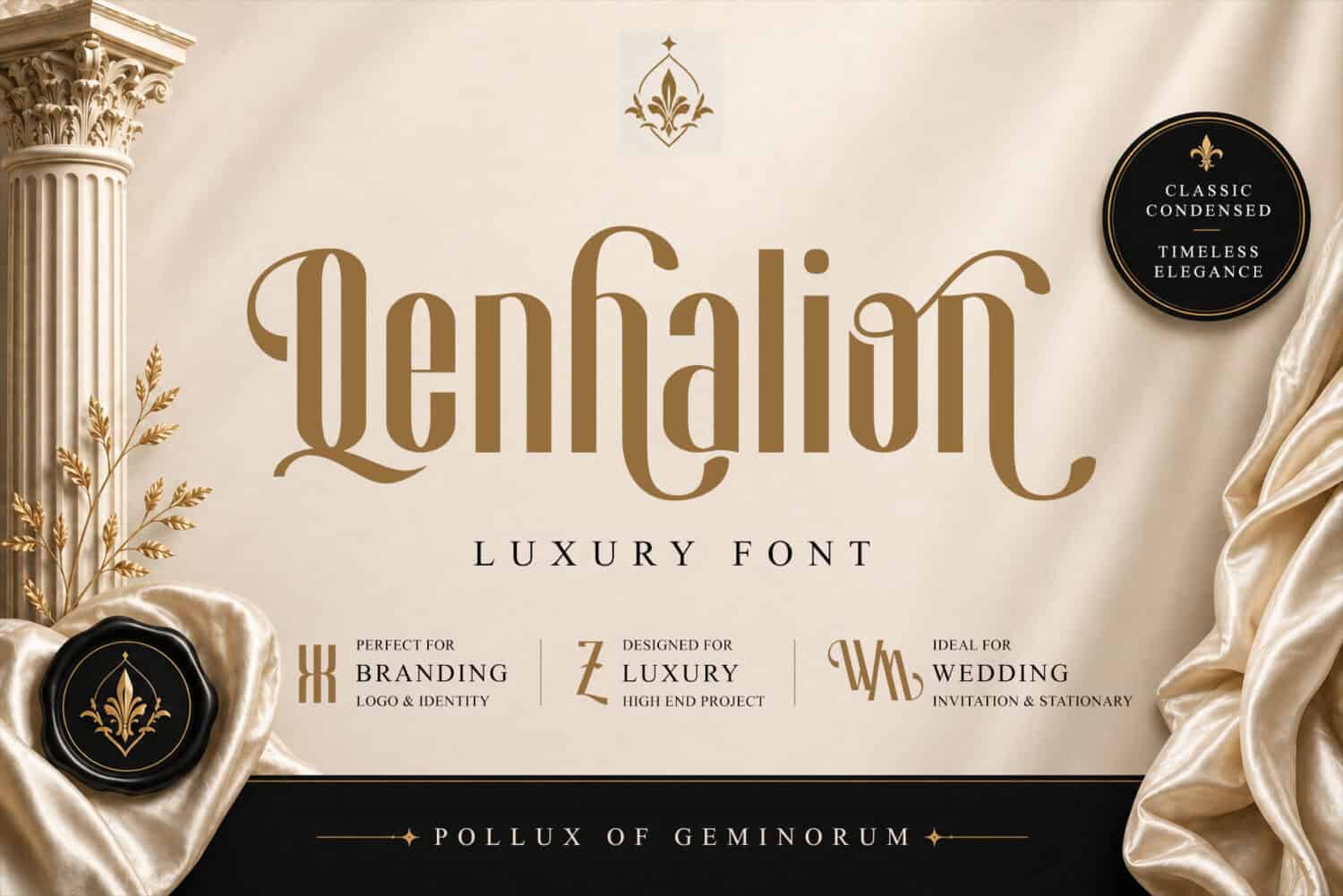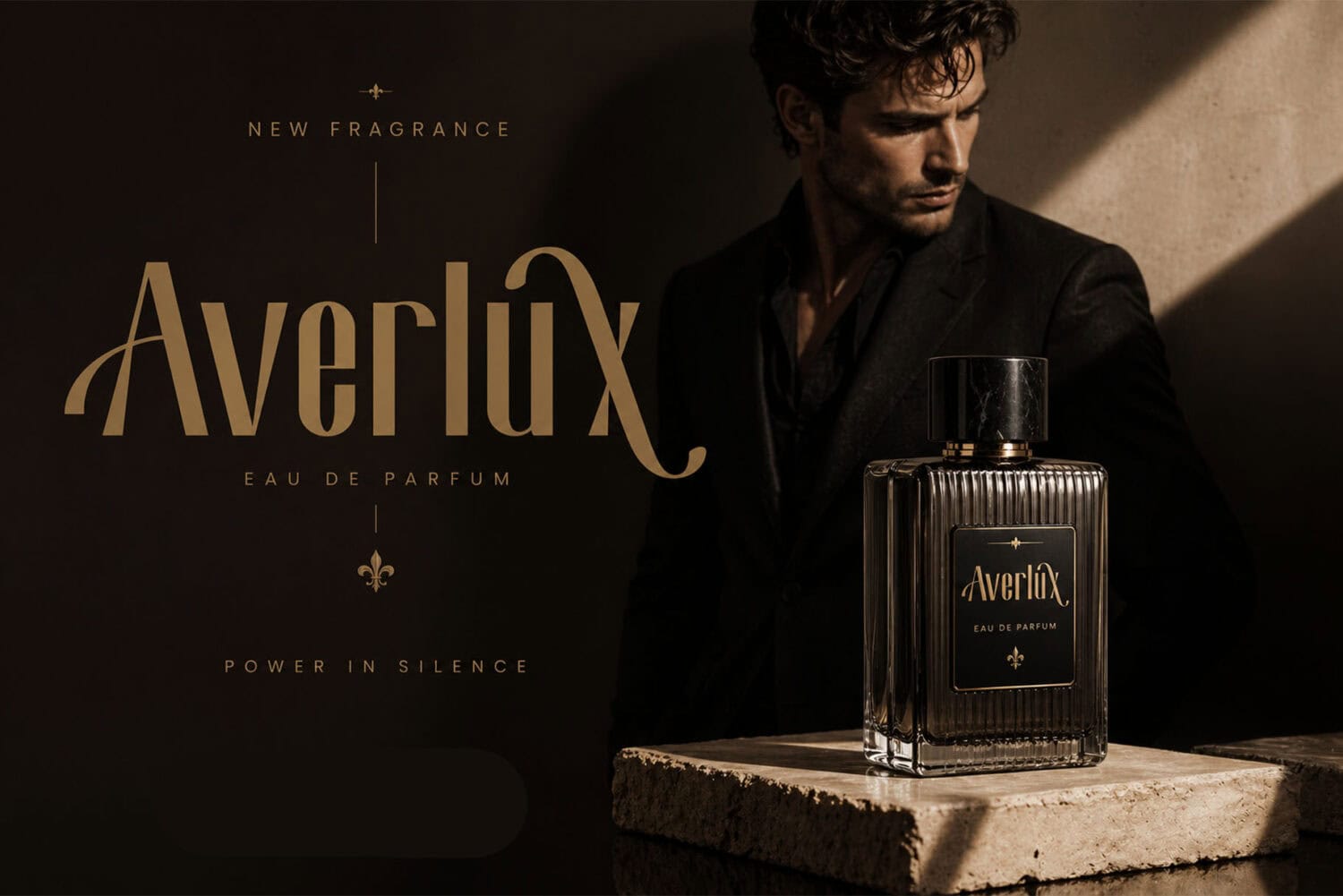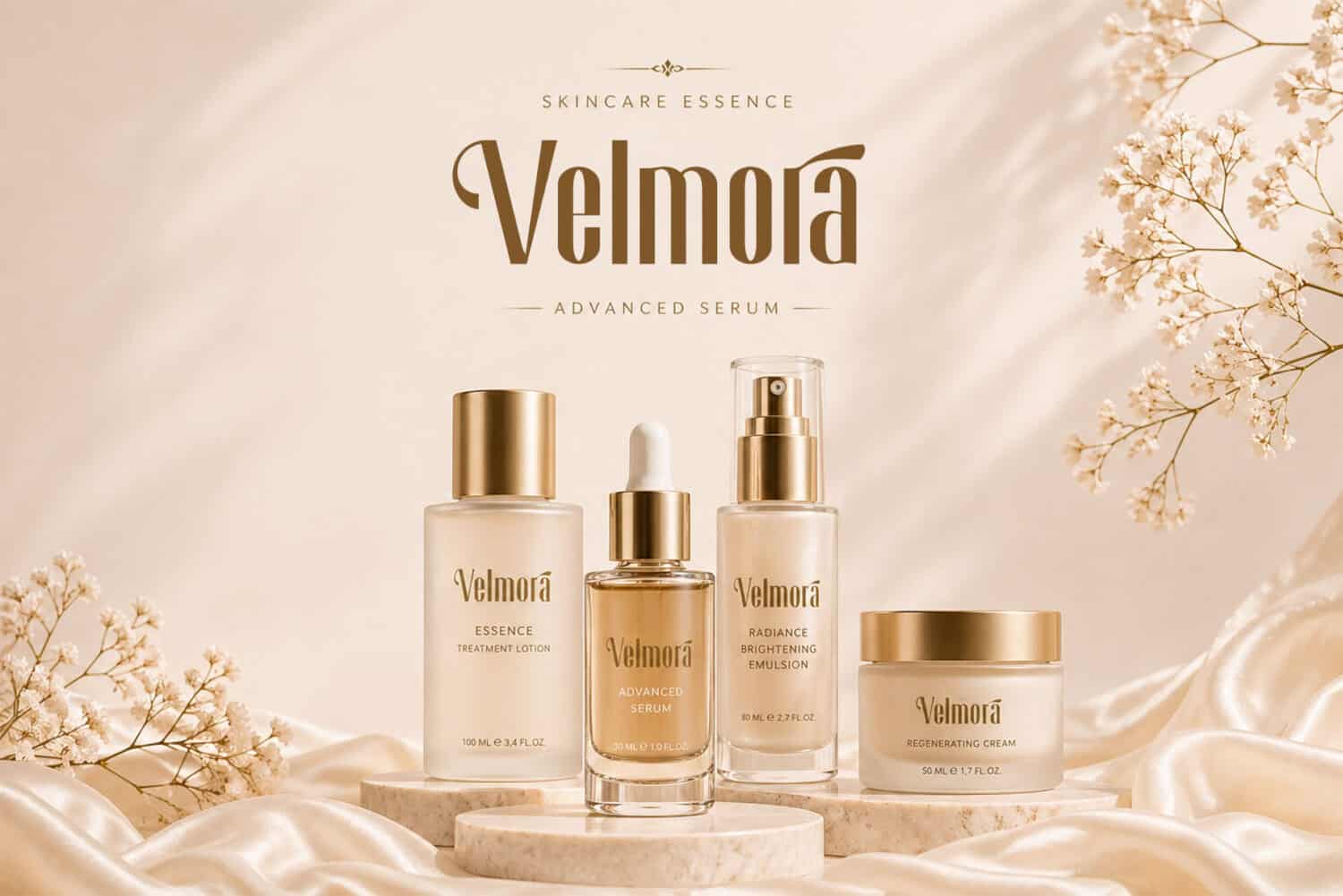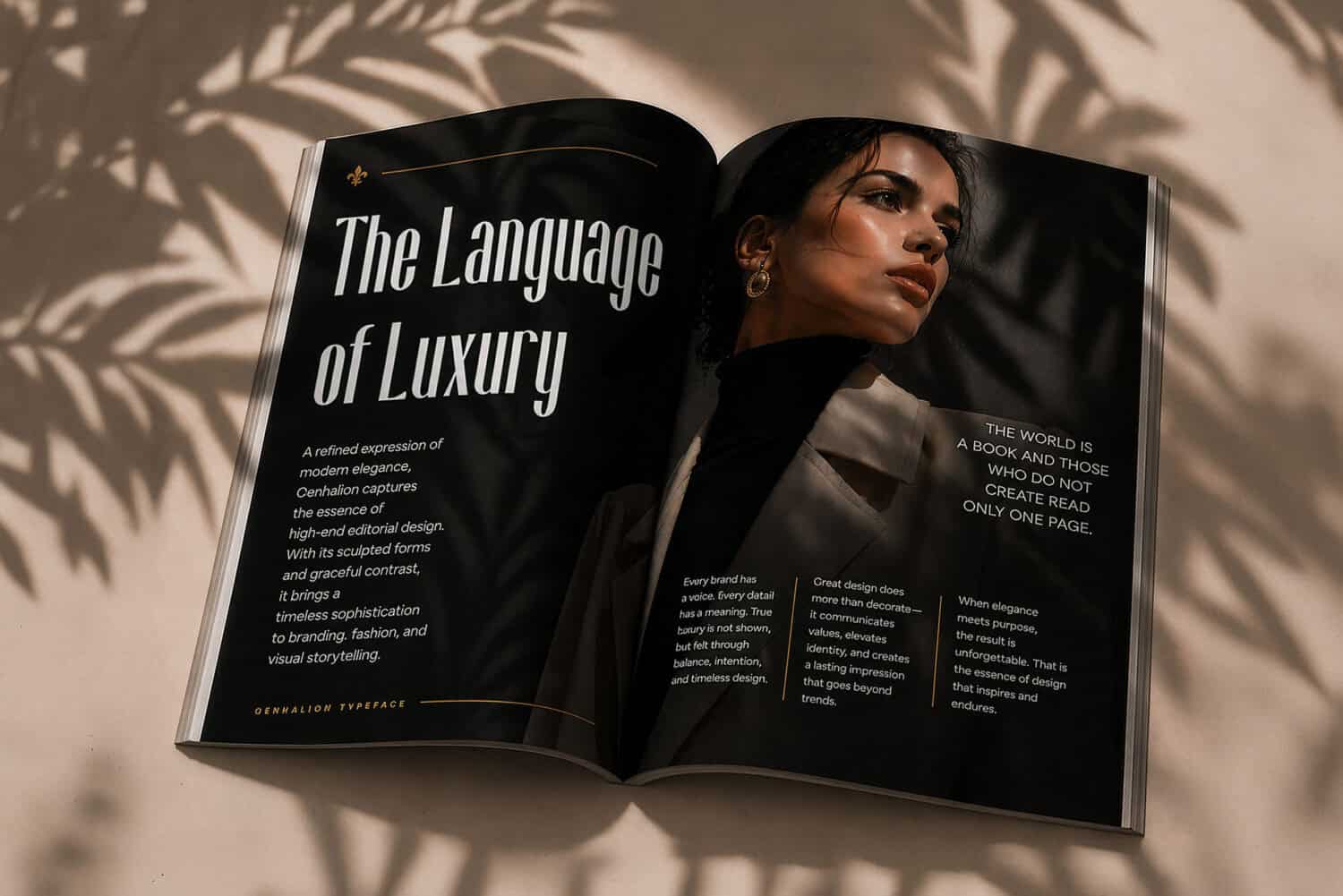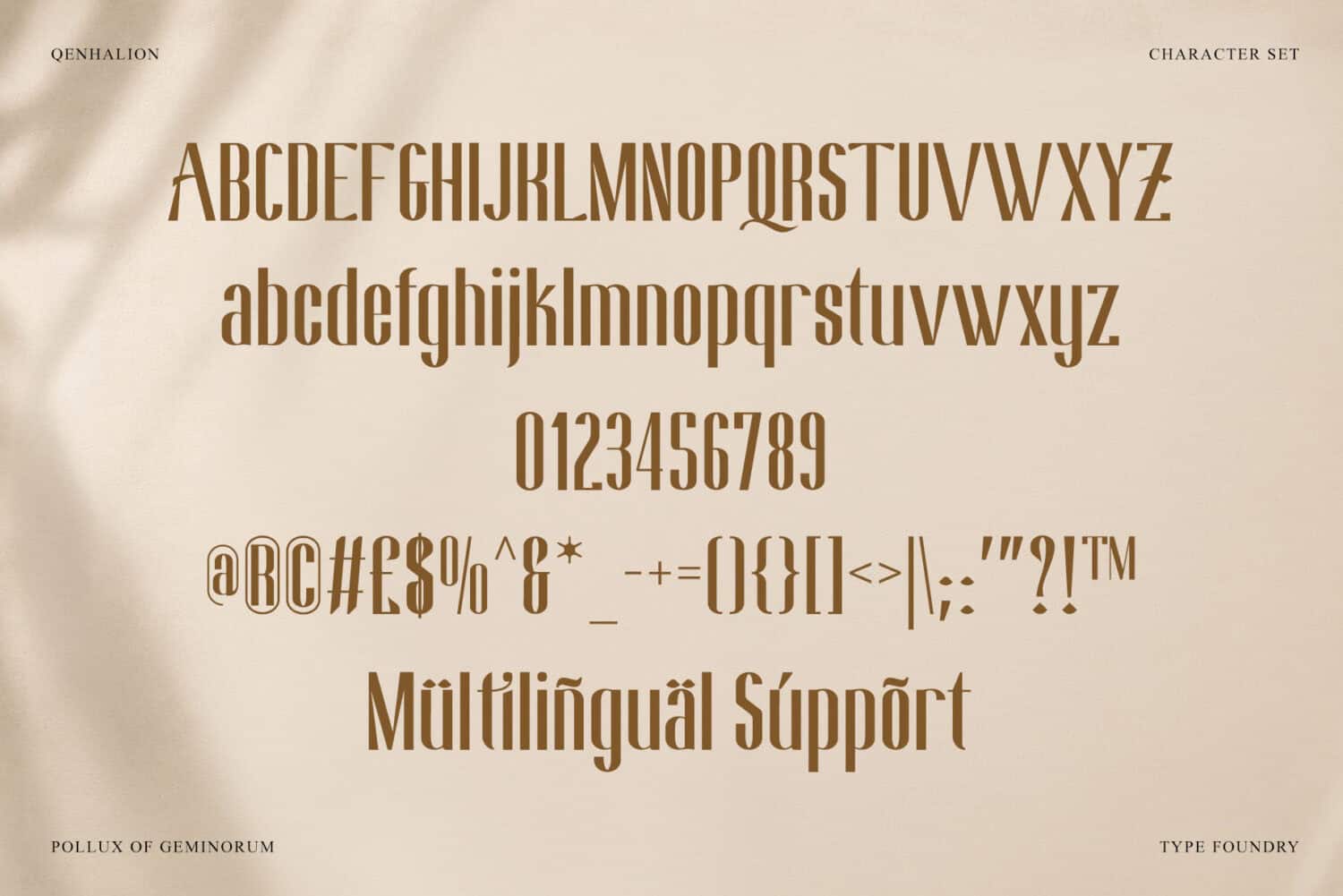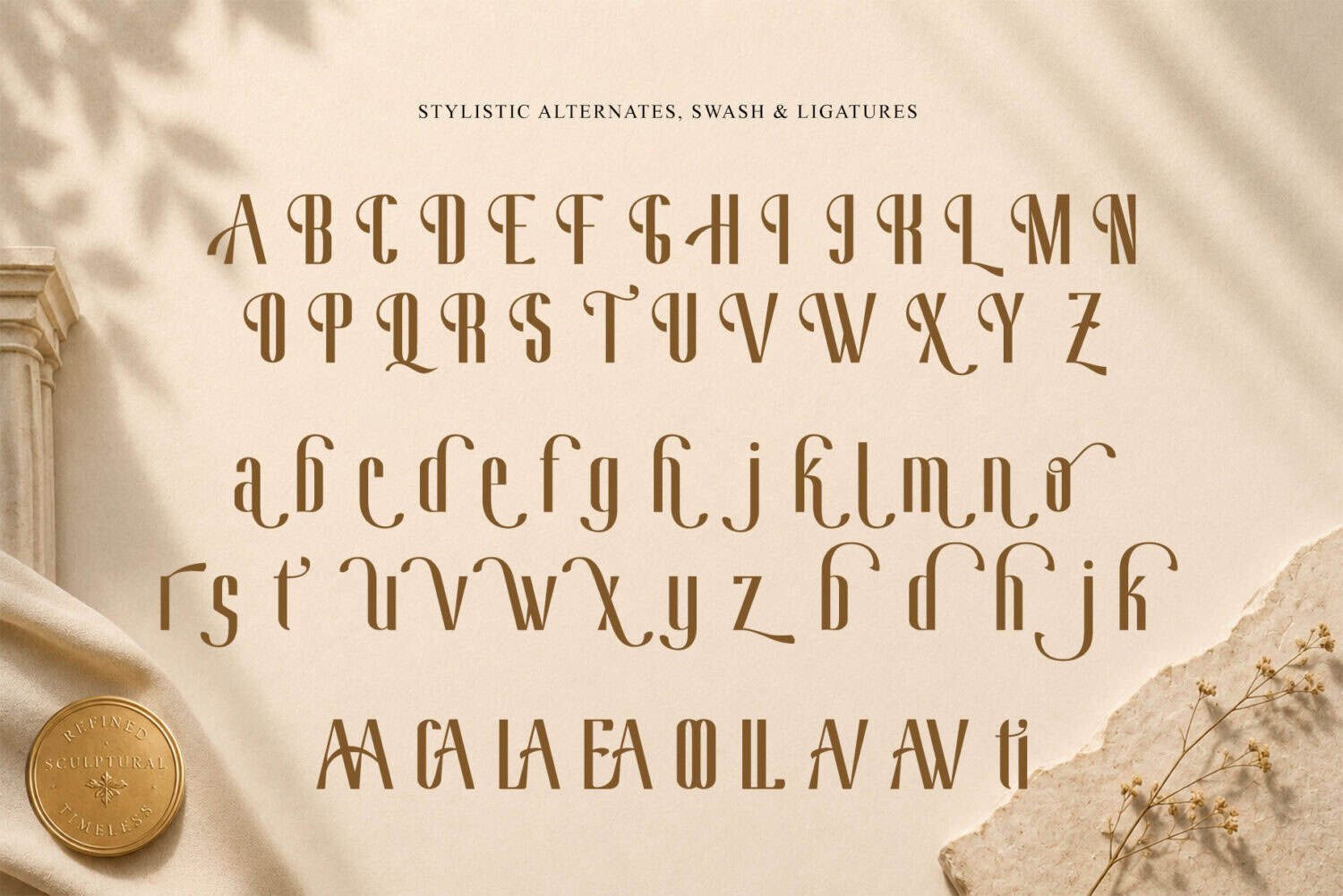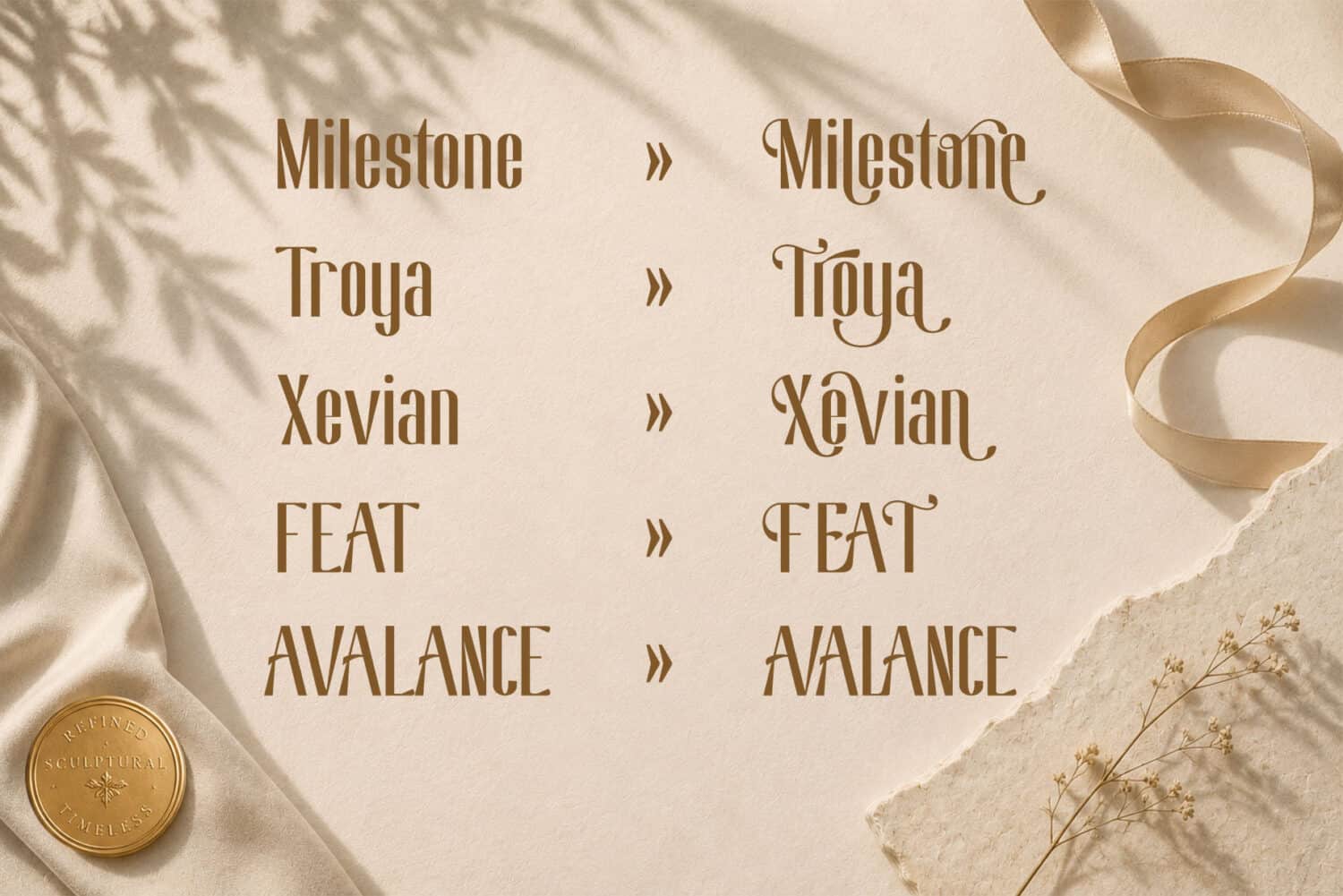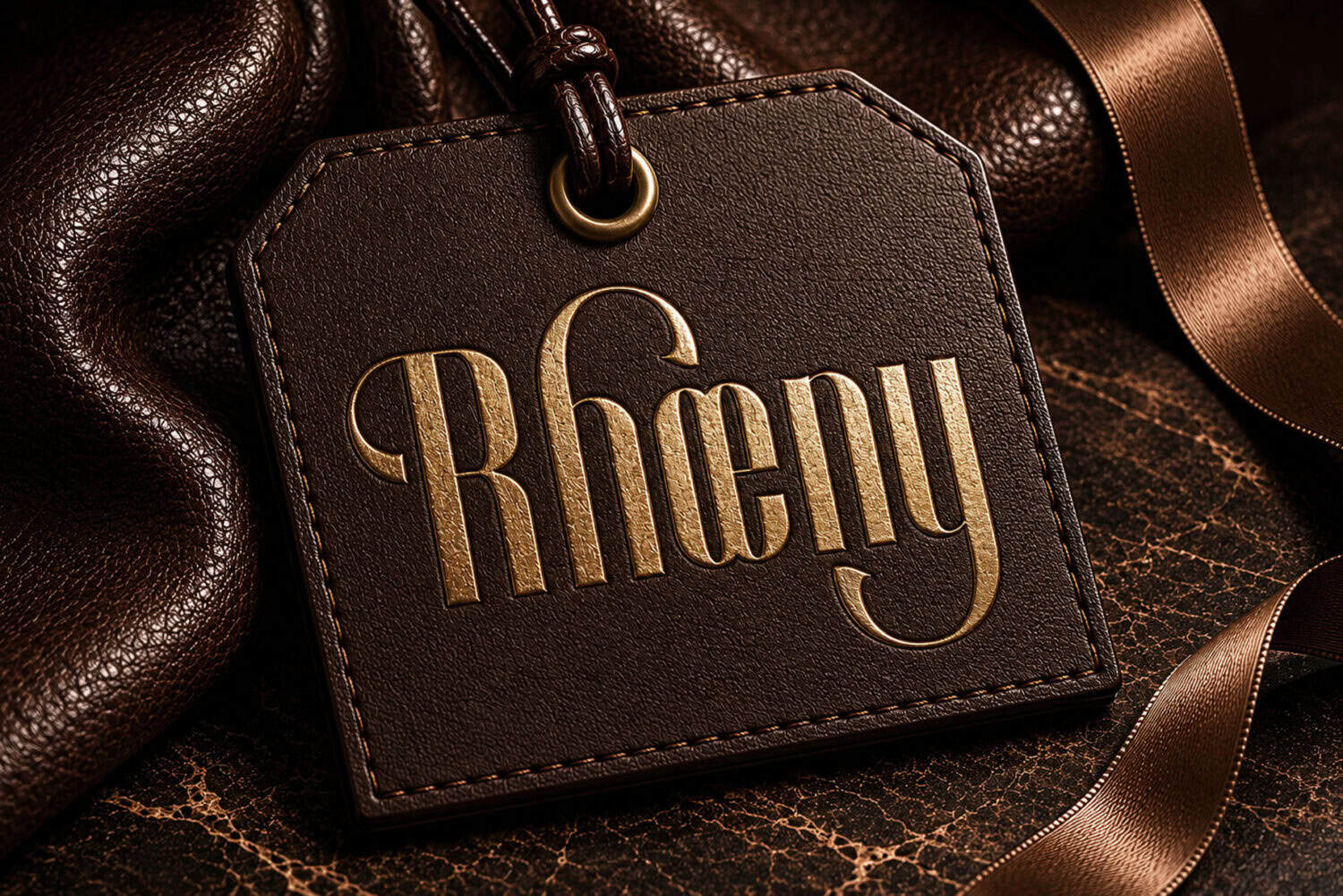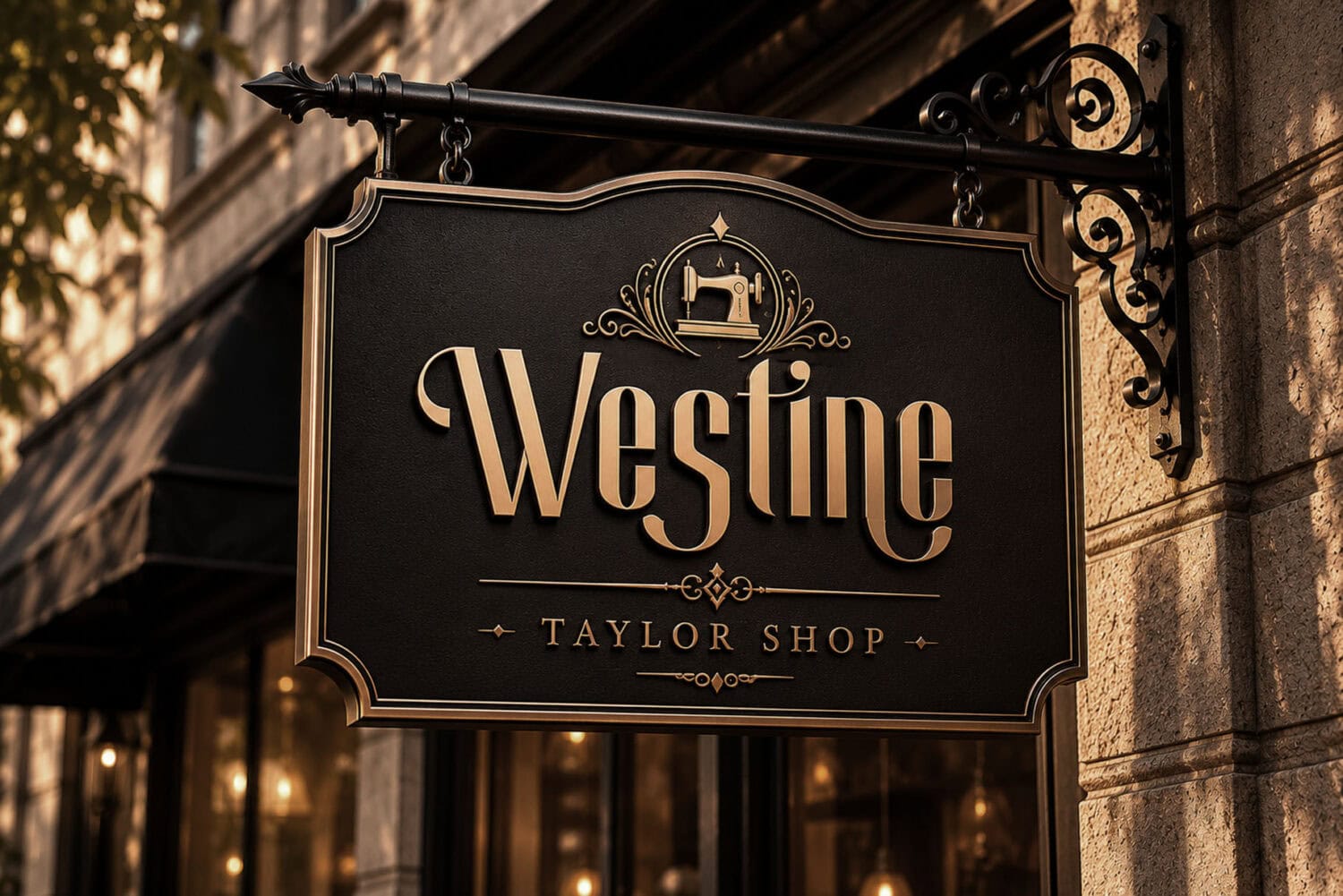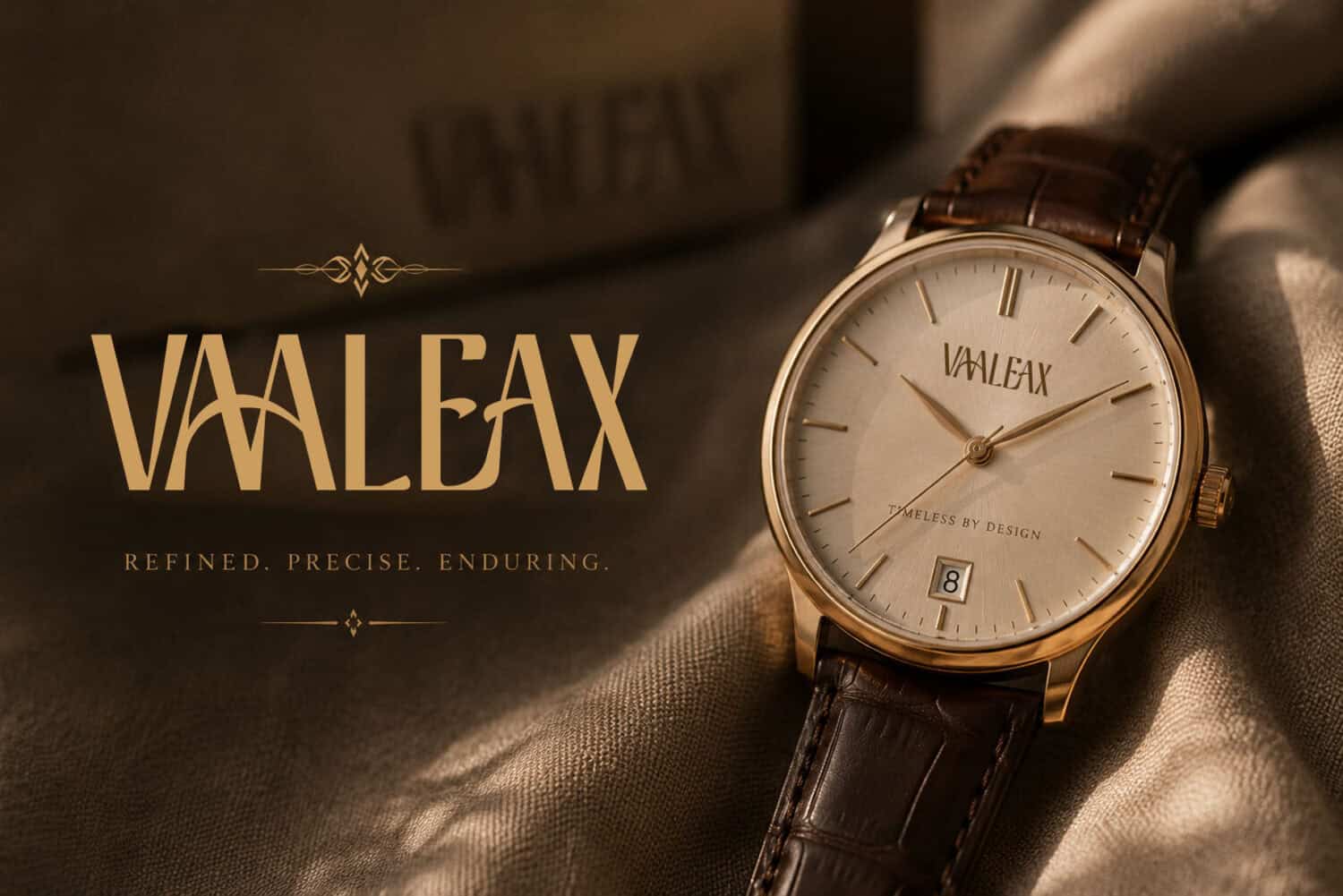
Infuse Timeless Elegance into Your Projects with This Classic Condensed Luxury Font
Infuse timeless elegance into your high-end creative projects with Qenhalion today. This classic condensed luxury font delivers sophisticated letterforms to upgrade your brand presentation. Therefore, it serves as the ultimate typography solution for premium branding and luxury goods. You should browse our full Luxury Fonts collection to find more exquisite digital assets. Moreover, this typeface brings sculpted lines and a graceful contrast to your visual storytelling. Consequently, your designs will attract high-profile clients and premium customers instantly.
Tailored for Diverse Creative Industries
Graphic Designers & Agencies: Designers can create spectacular perfume labels and editorial magazine headers with ease. Furthermore, the elegant ligatures give your design layouts a bespoke, custom-tailored feel.
Small Business & Crafters: Crafters can cut smooth vector paths for premium product tags and custom leather embossing. In addition, it elevates artisan boutique signage and handmade luxury packaging beautifully.
Content Creators & YouTubers: Creators can design ultra-sleek social media promos and high-fashion photography overlays. Therefore, your digital feeds project a highly professional lifestyle to your followers.
Corporate & Wedding Agencies: High-end planners can print beautiful wedding invitations and elite stationery ensembles. In addition, it gives corporate luxury brands a powerful voice of enduring heritage.
The download package offers high-resolution file formats including OTF, TTF, and WOFF/WOFF2. Moreover, the font character set contains stunning stylistic alternates and decorative swashes for deep customization. You also receive extensive multilingual support to execute global luxury branding campaigns seamlessly. Every stroke remains incredibly sharp on physical boutique hangtags or high-contrast web banners. Consequently, it optimizes your design workflow while maintaining strict industry standards.